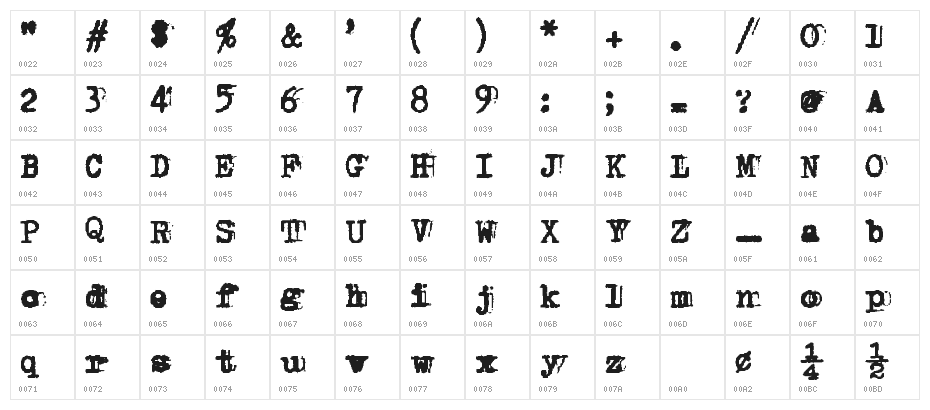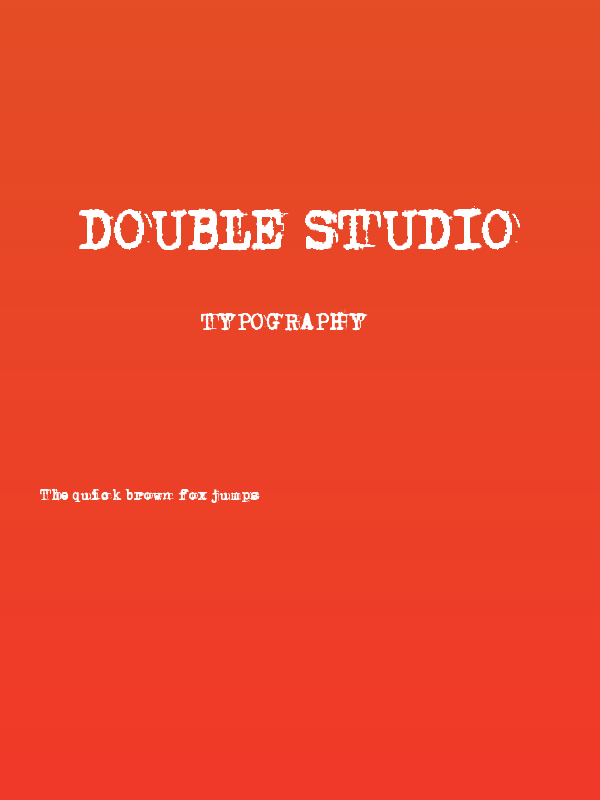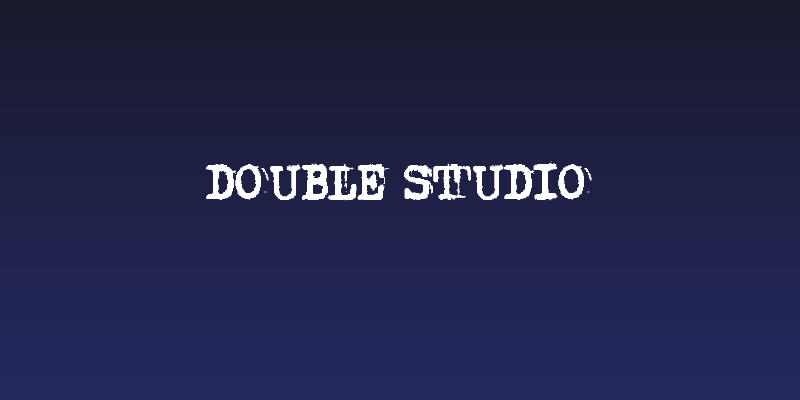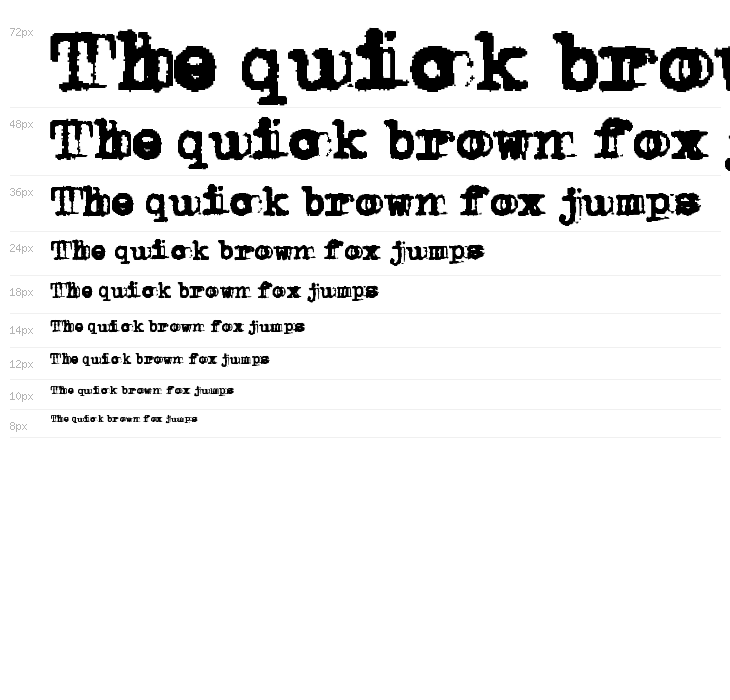
Double Studio Font
Double Studio Description
This font exhibits a rugged, distressed style with a vintage appeal. The characters have a textured, worn look, reminiscent of old typewriter or letterpress prints. Each letter features irregular edges and varying stroke thickness, adding to its rustic charm. The uppercase and lowercase letters maintain a consistent design theme, while the numerals and special characters complement the overall aesthetic. This font is ideal for projects that require a touch of nostalgia or a handcrafted feel, such as posters, branding, or packaging for artisanal products.
| Overall Style | Vintage |
| Proposed Projects | Ideal for vintage-themed posters, artisanal product packaging, and branding. |